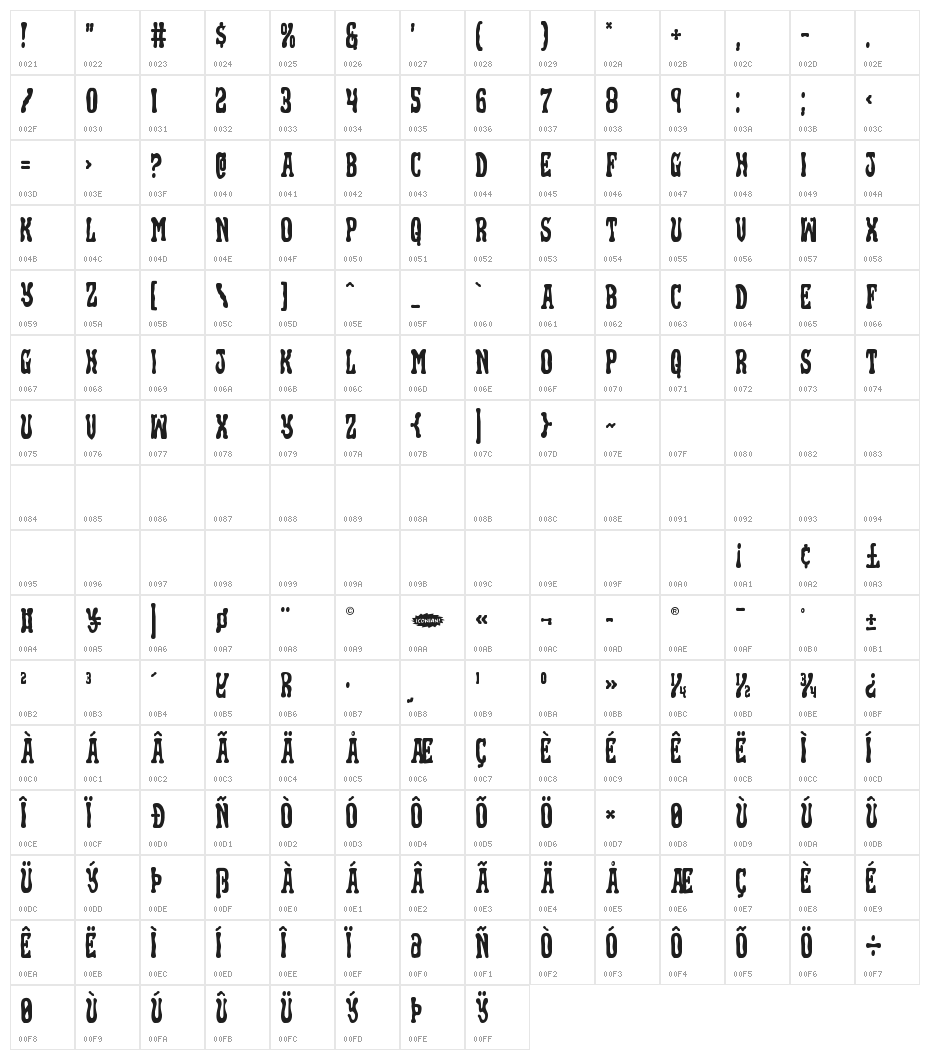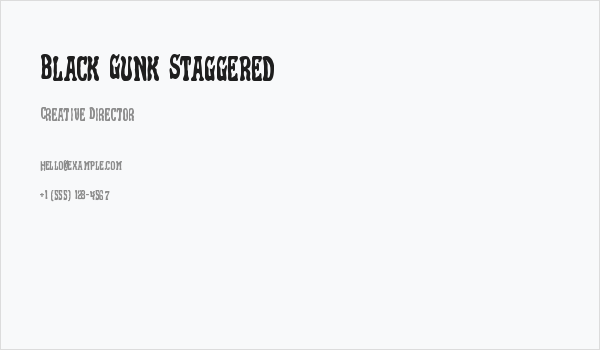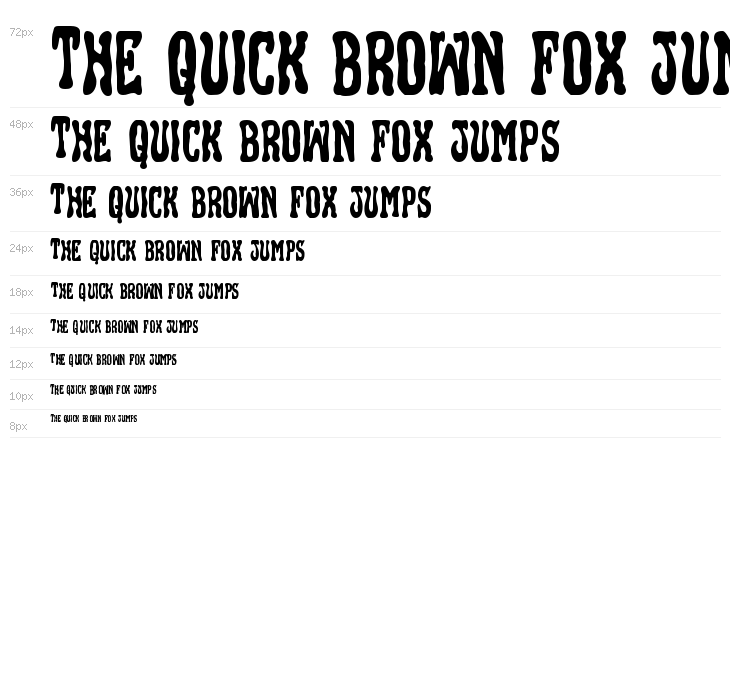
Black Gunk Staggered Font
Black Gunk Staggered Description
This font features a bold and playful design with a staggered, irregular appearance that gives it a unique, organic feel. The characters are thick and rounded, with a slightly uneven baseline that adds to its quirky charm. The bold strokes and exaggerated curves make it stand out, while the irregularities in the letterforms provide a sense of movement and energy. This font is perfect for projects that require a fun and eye-catching display typeface, such as posters, headlines, or branding materials that aim to convey a sense of creativity and spontaneity.
| Proposed Projects | Ideal for posters, headlines, branding, and any creative projects needing a bold, playful touch. |